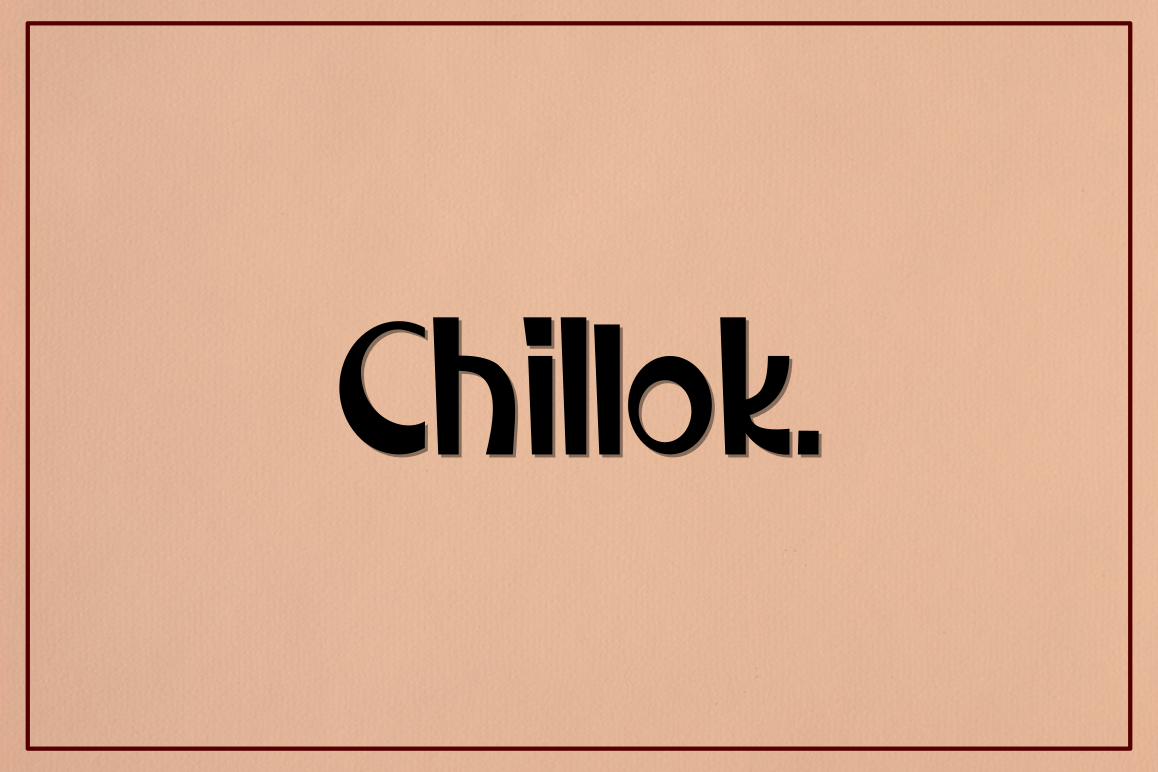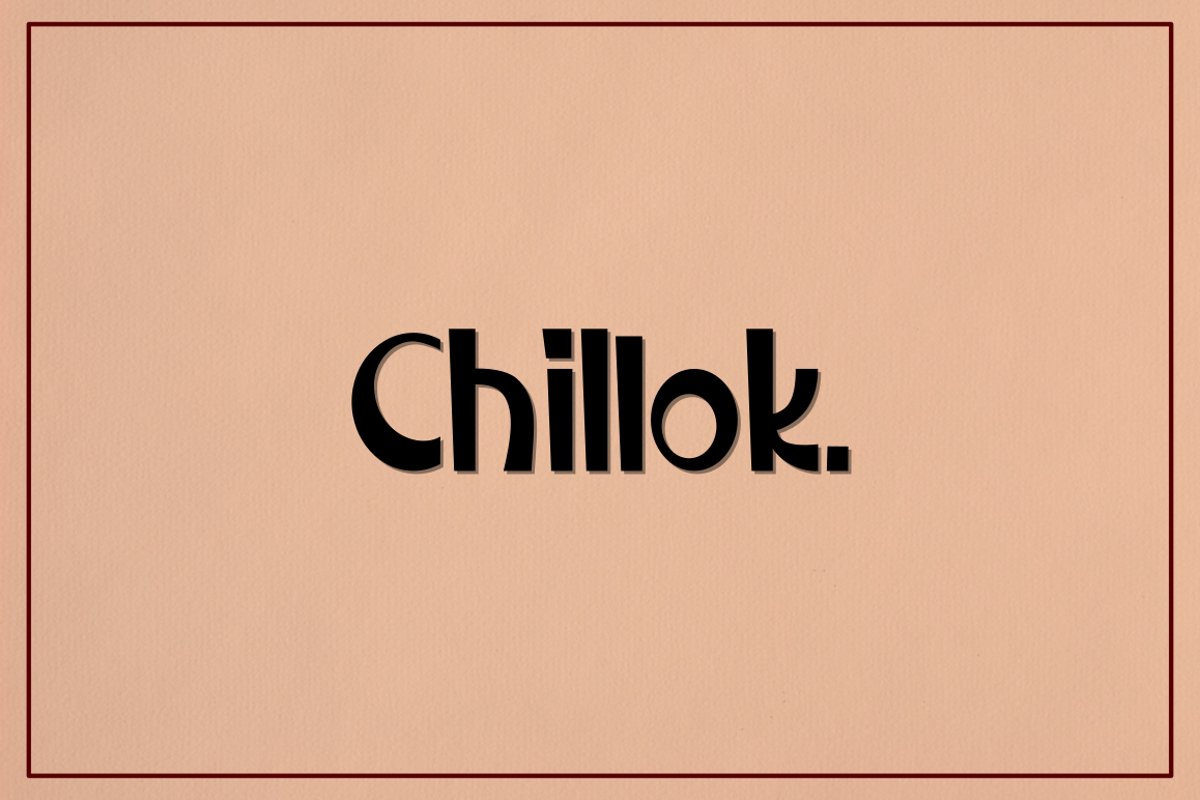
Chillok
Introducing Chillok. Chillok is beautiful display font. Chillok is perfectly suited to logo, logotype, branding, poster, t-shirt, quotes, instagram post, book cover and many more.